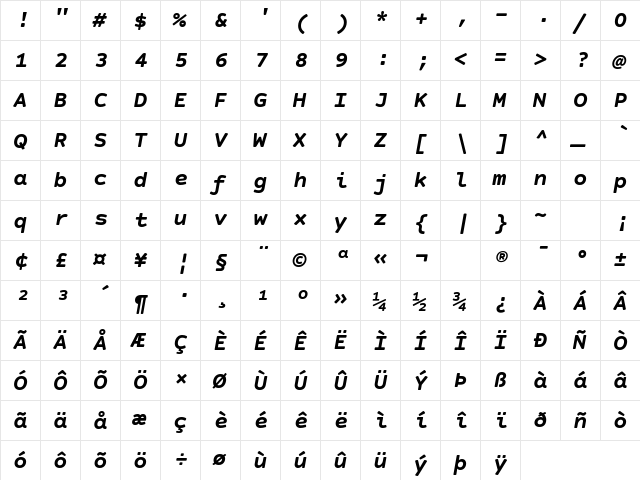
Courier Prime Sans Bold Italic Font Preview
| Foundry | Quote-Unquote Apps |
| Designer | Alan Dague-Greene |
Design Context for Courier Prime Sans Typeface
Courier Prime Sans uses fixed-width spacing throughout, giving it the structured, systematic character associated with coding environments and technical documentation. The dynamic lean of this cut emphasises speed and emphasis in any layout. The heavy weight commands attention and anchors typographic hierarchies.
Pro Tip: Use Courier Prime Sans with slightly increased line-height for extended reading — fixed-width spacing can feel dense in longer passages without extra breathing room.